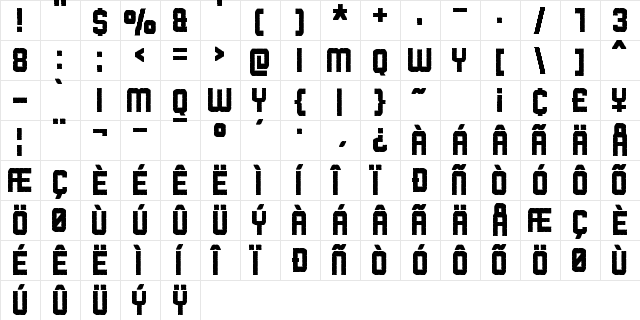
Rowdy Space Pirates Regular
| Designer | GameDevDan |
Design Context for Rowdy Space Pirates Typeface
Rowdy Space Pirates is a composed and adaptable typeface that performs quietly and consistently across a wide range of design contexts.
Pro Tip: Use Rowdy Space Pirates in both headline and body roles to test its range before committing to a single application.